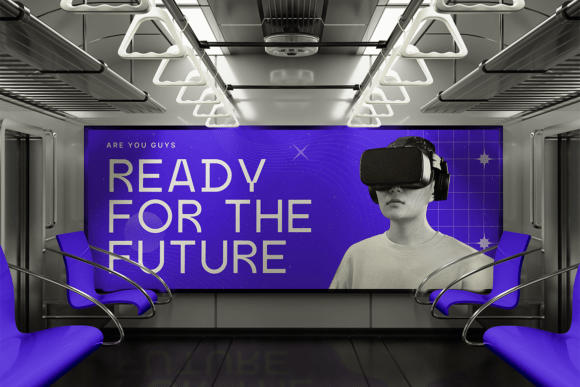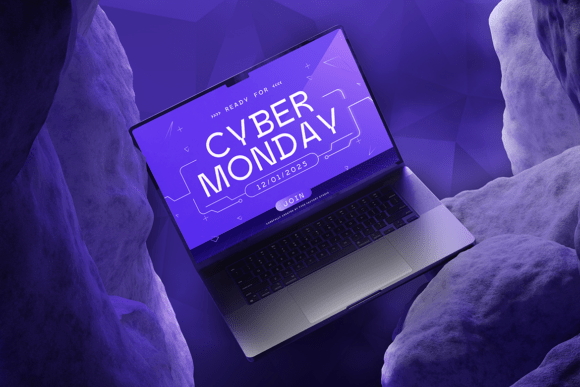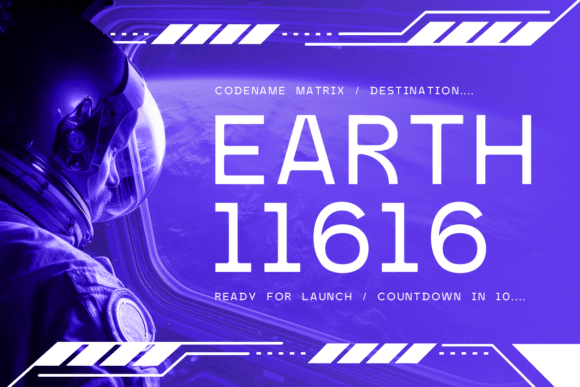
Introduction to Maisney Font
Have you ever been in the midst of a creative project, staring at a blank screen, searching for the perfect font to bring your vision to life? It’s that moment of frustration and excitement when the right design resource can make all the difference. For designers and developers working on technology-driven projects, finding a font that embodies the modern digital aesthetic can be a challenge. That’s where the Maisney Font comes in – a high-quality, monospace sans serif typeface designed to meet the needs of the digital age.
With its clean, structured design and precise character spacing, the Maisney Font is perfect for UI design, posters, branding, and other creative projects that require a futuristic and innovative look. Whether you’re working on a project with a transparent background or need a font that can hold its own against a busy digital interface, Maisney Font is a valuable addition to any designer’s toolkit. And the best part? It’s available for free download, making it an accessible and affordable option for designers of all levels.
Key Features of Maisney Font
- High-quality design resource for creative projects, offering a unique and elegant style.
- Designed to work at high resolutions, ensuring crisp and clear display on various screens and devices.
Honest Review: Maisney Font
I recently stumbled upon the Maisney Font, a high quality design resource that caught my attention. As a designer, I’m always on the lookout for unique and creative fonts to elevate my projects.
The Maisney Font has a transparent background, making it easy to work with and integrate into my designs. I love how versatile it is – perfect for a wide range of creative projects, from logos to infographics.
Here are some things that work well with the Maisney Font:
- ✨ Unique and playful style that adds a touch of personality to designs
- ✨ High quality and clear typography that’s easy to read
- ⚠️ Limited font styles available, which might limit its use in certain projects
- ⚠️ Not as comprehensive as some other font resources I’ve used in the past
How to Use Maisney Font
Maisney Font is a high-quality design resource suitable for various creative projects. Its unique and stylish design makes it perfect for use in branding, advertising, and digital media.
Tips for Getting the Most Out of Maisney Font
Maisney Font is commonly used in branding, advertising, and digital media. Its unique design makes it perfect for creating eye-catching graphics, logos, and other visual elements.